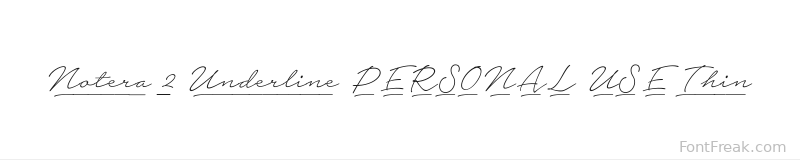
Notera 2 Underline PERSONAL USE Thin
About Notera 2 Underline PERSONAL USE Thin
Notera 2 Underline PERSONAL USE Thin is a beautifully crafted script font designed by Mans Greback, falling into the category of handwritten typefaces. This font exudes a delicate, flowing elegance, characterized by its thin stroke weight that lends a light and airy feel to any project. The gentle contrasts between the thin lines and subtle curves create an inviting and approachable aesthetic. The spacing between the letters is thoughtfully balanced, ensuring readability while maintaining a stylish appearance. Noteworthy are the decorative underline elements that add a unique flair, making it perfect for enhancing text without overwhelming the overall design.
This versatile font is ideal for a variety of applications. It shines in wedding invitations, where its graceful lines can convey romance and intimacy. It is also well-suited for greeting cards, giving a personal touch to messages for special occasions. The font works wonderfully on restaurant menus, adding a sophisticated yet friendly vibe to the dining experience. Additionally, small business owners can utilize Notera 2 Underline PERSONAL USE Thin for branding materials, ensuring their visual identity remains memorable and distinctive.
The target audience for this font includes graphic designers, small business owners, and content creators looking for a charming typeface that communicates warmth and personality. Whether you're crafting a heartfelt message or designing a promotional piece, this font will elevate your work.
What makes Notera 2 Underline PERSONAL USE Thin stand out is its harmonious blend of elegance and simplicity. It offers a unique handwritten quality while remaining highly legible, making it a fantastic choice for personal projects. Notera 2 Underline PERSONAL USE Thin font free download provides an accessible option for those seeking to enhance their designs with a touch of sophistication.